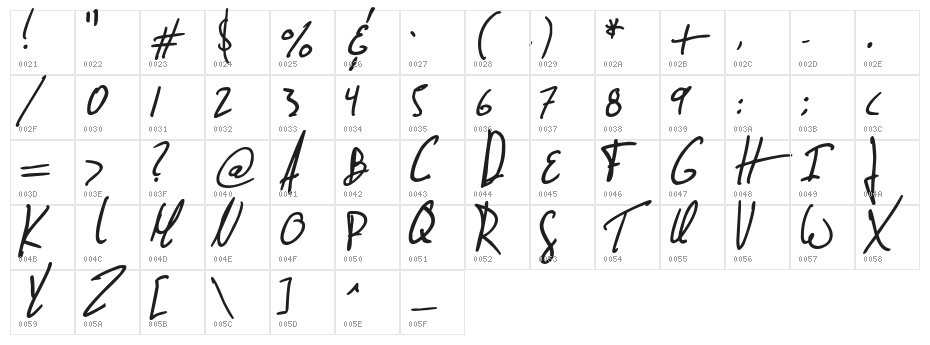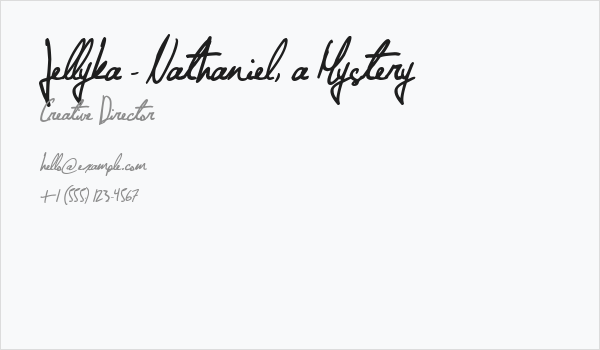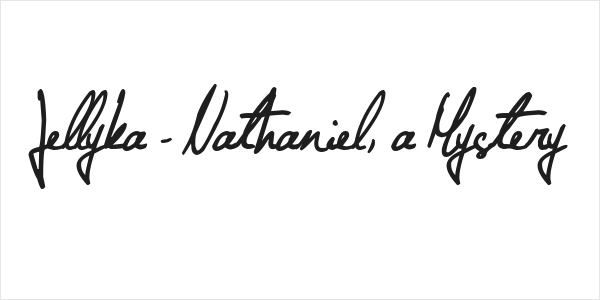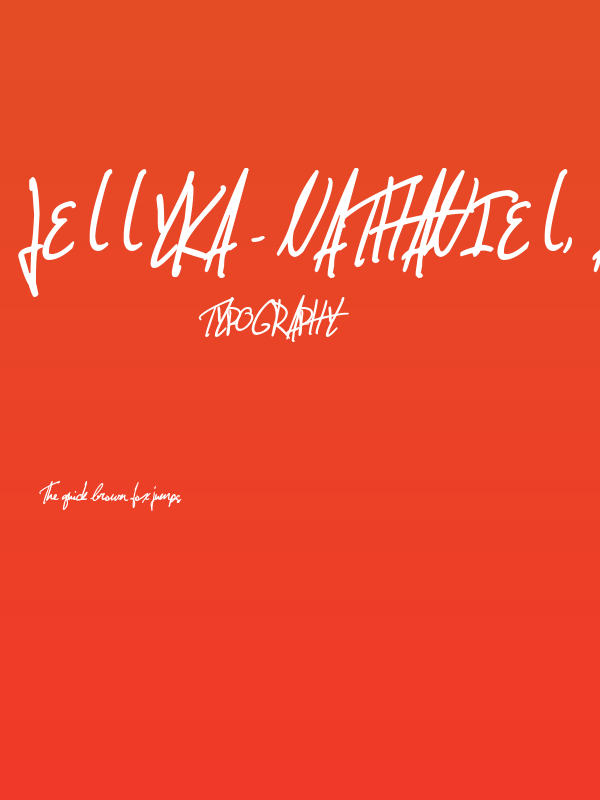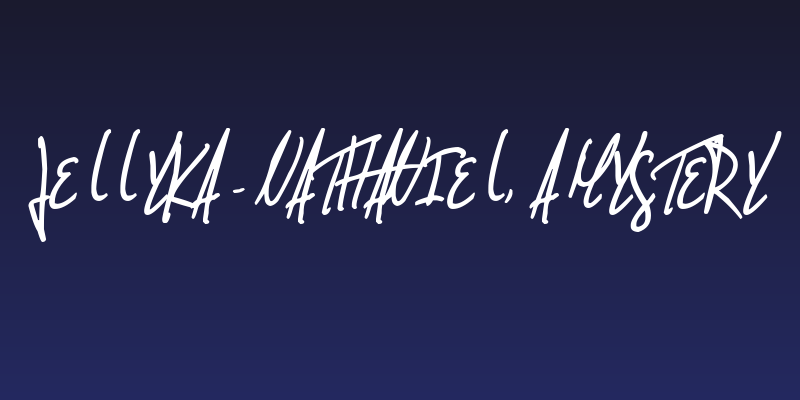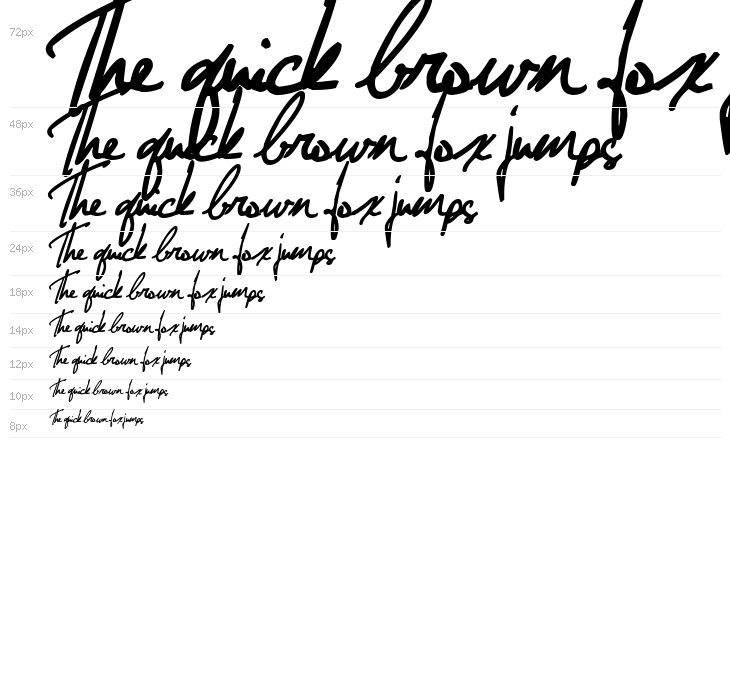
Jellyka - Nathaniel, a Mystery Font
Jellyka - Nathaniel, a Mystery Description
This font exhibits a whimsical and artistic handwritten style, characterized by its fluid and flowing letterforms. The strokes are dynamic and varied, with a natural, organic feel that mimics the look of ink on paper. Each character is unique, with a playful and slightly irregular appearance, adding to its charm and personality. The uppercase and lowercase letters maintain a consistent style, while the numbers and special characters blend seamlessly with the overall design. This font is perfect for projects that require a personal touch or an artistic flair.
| Proposed Projects | Ideal for invitations, greeting cards, personal branding, and artistic projects. |